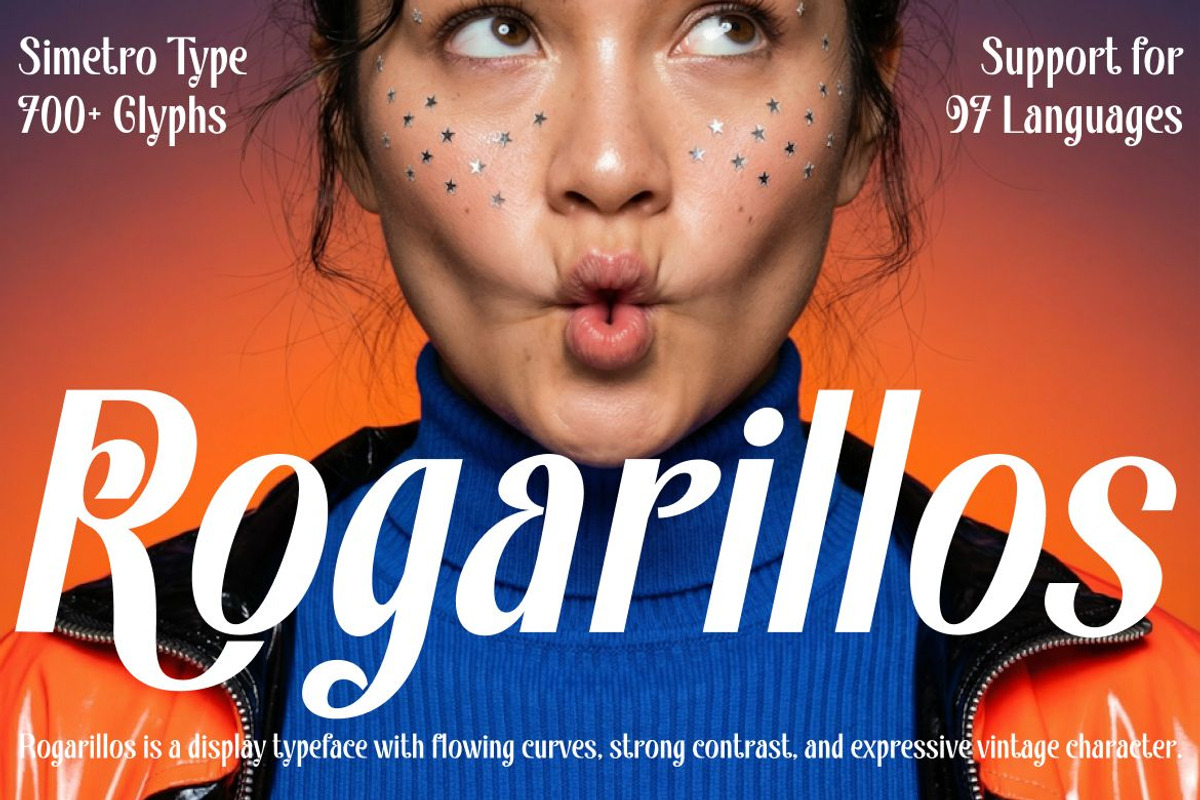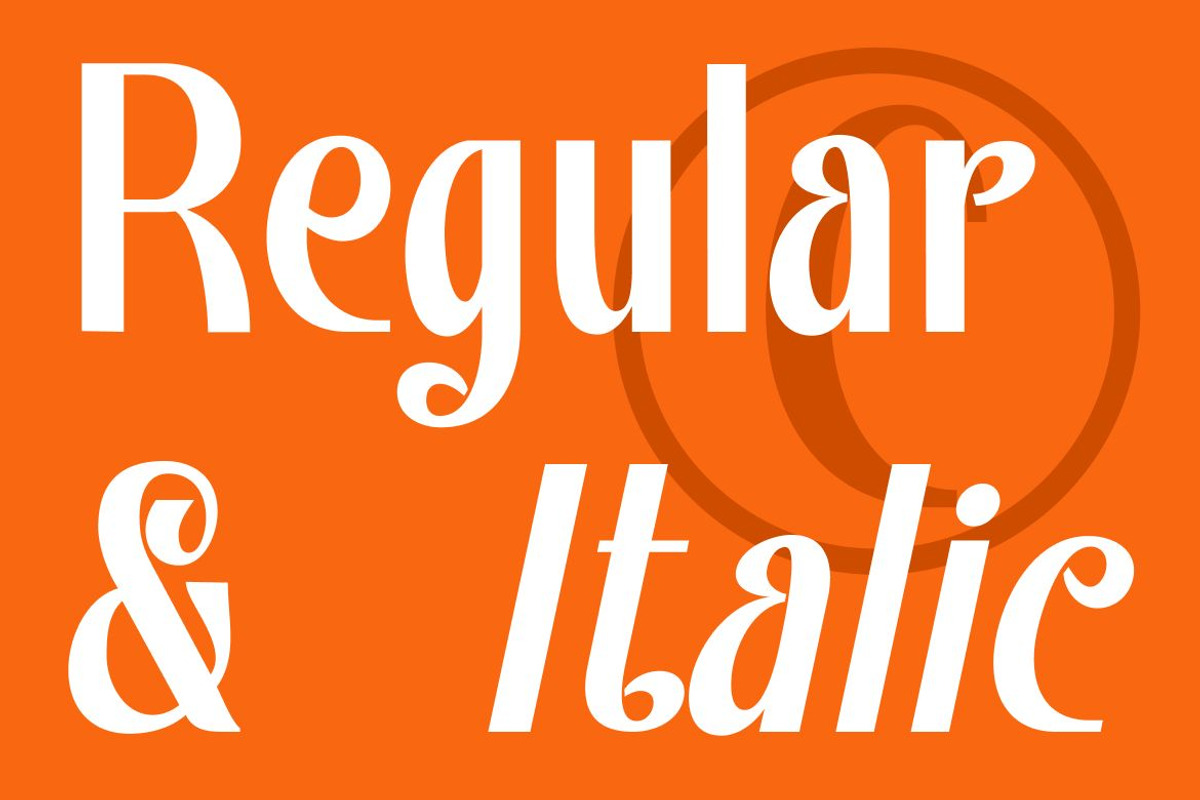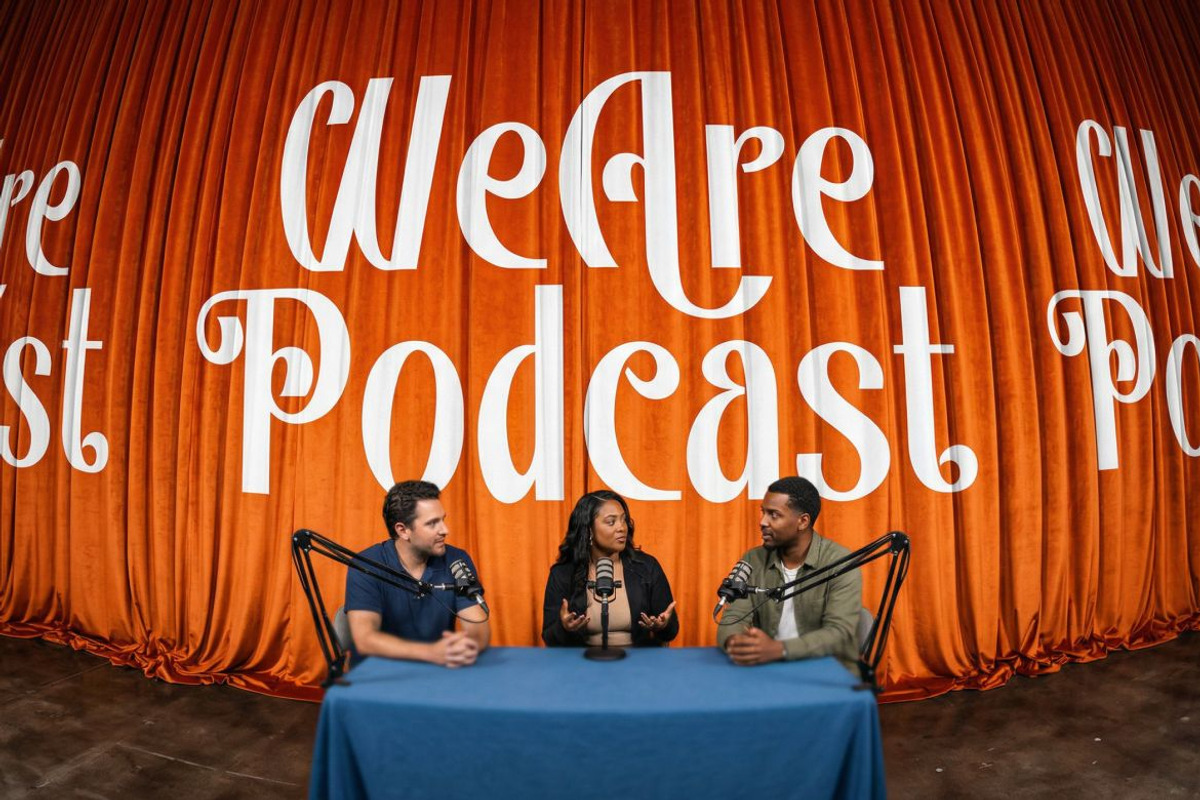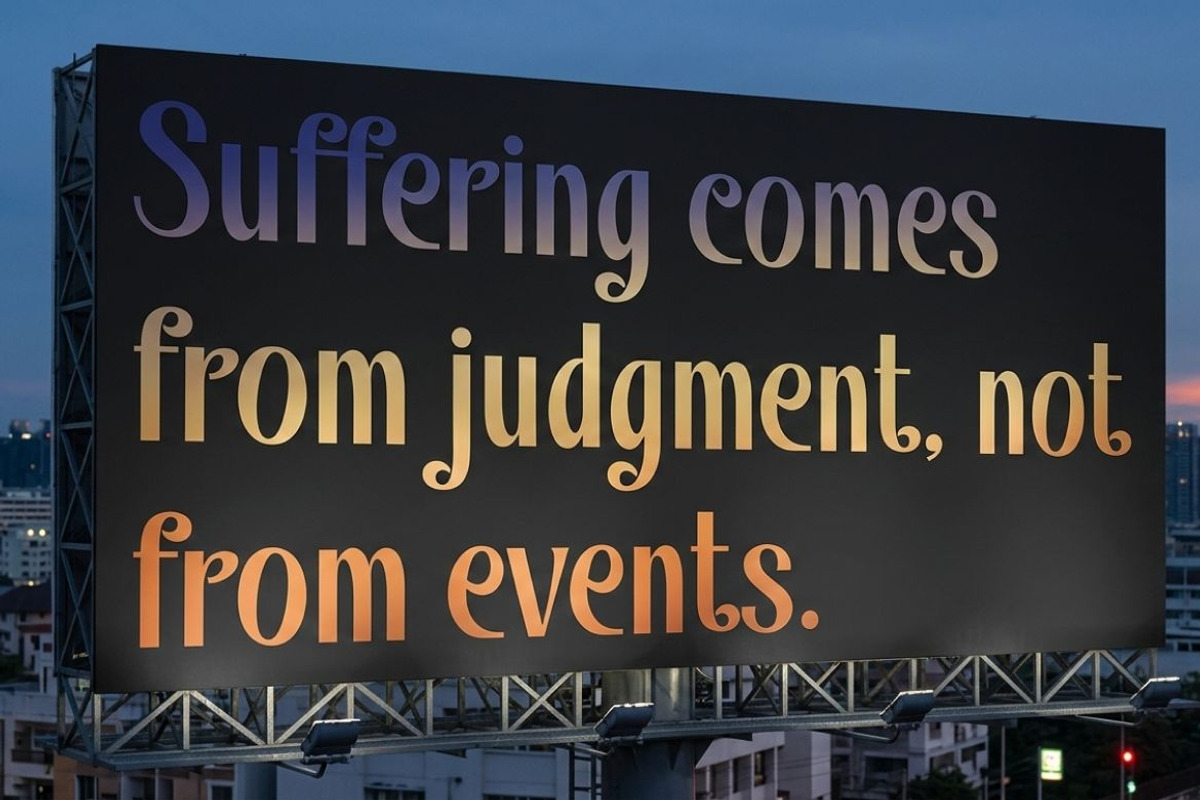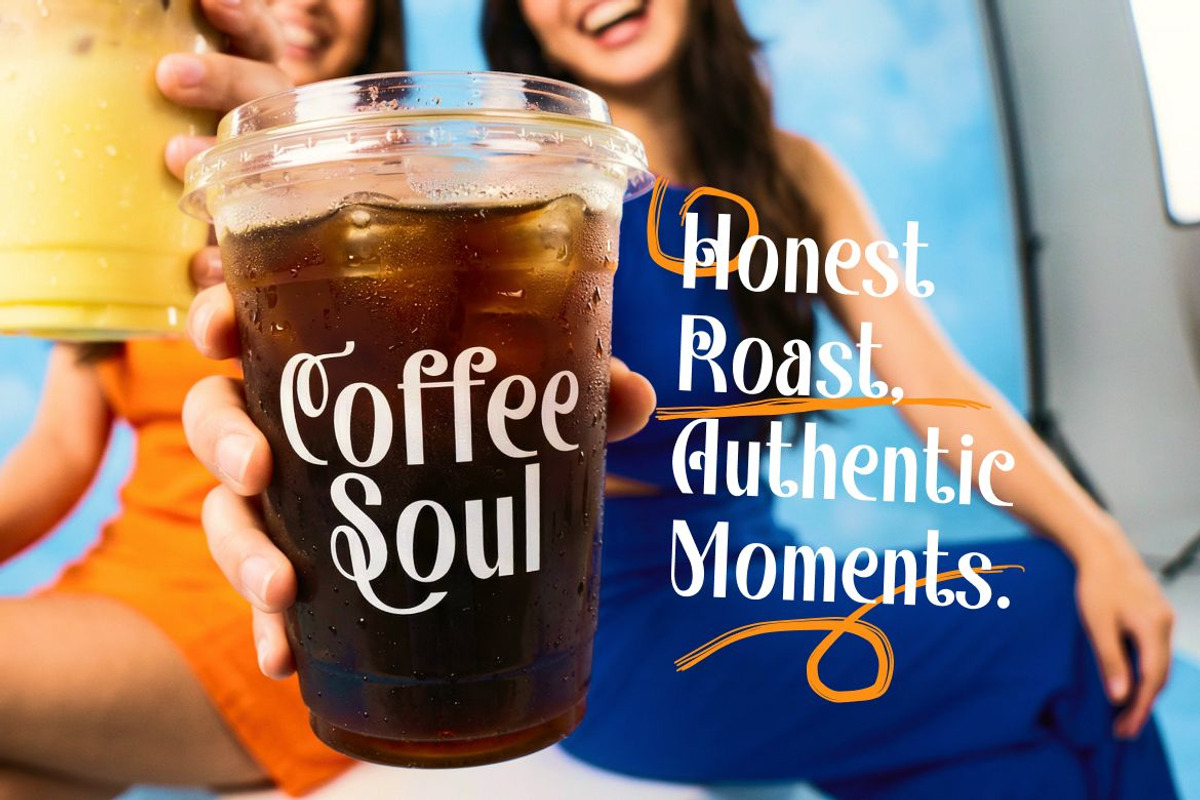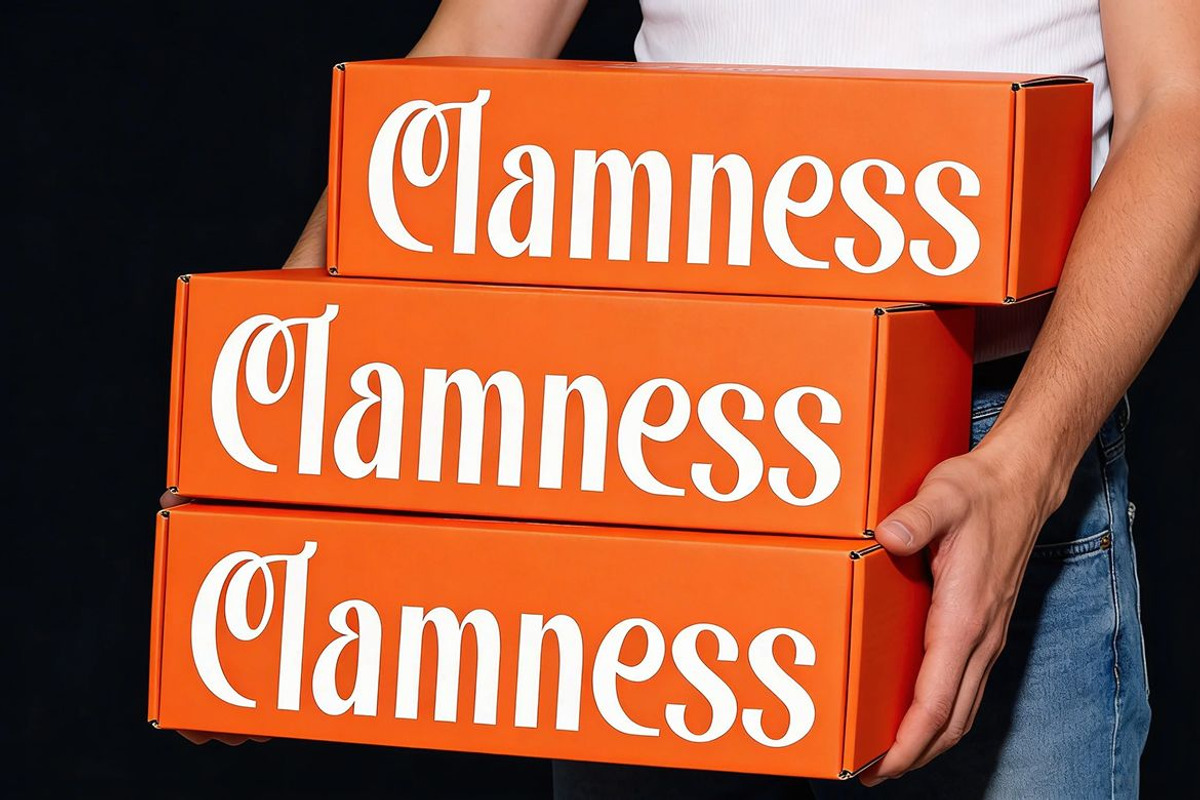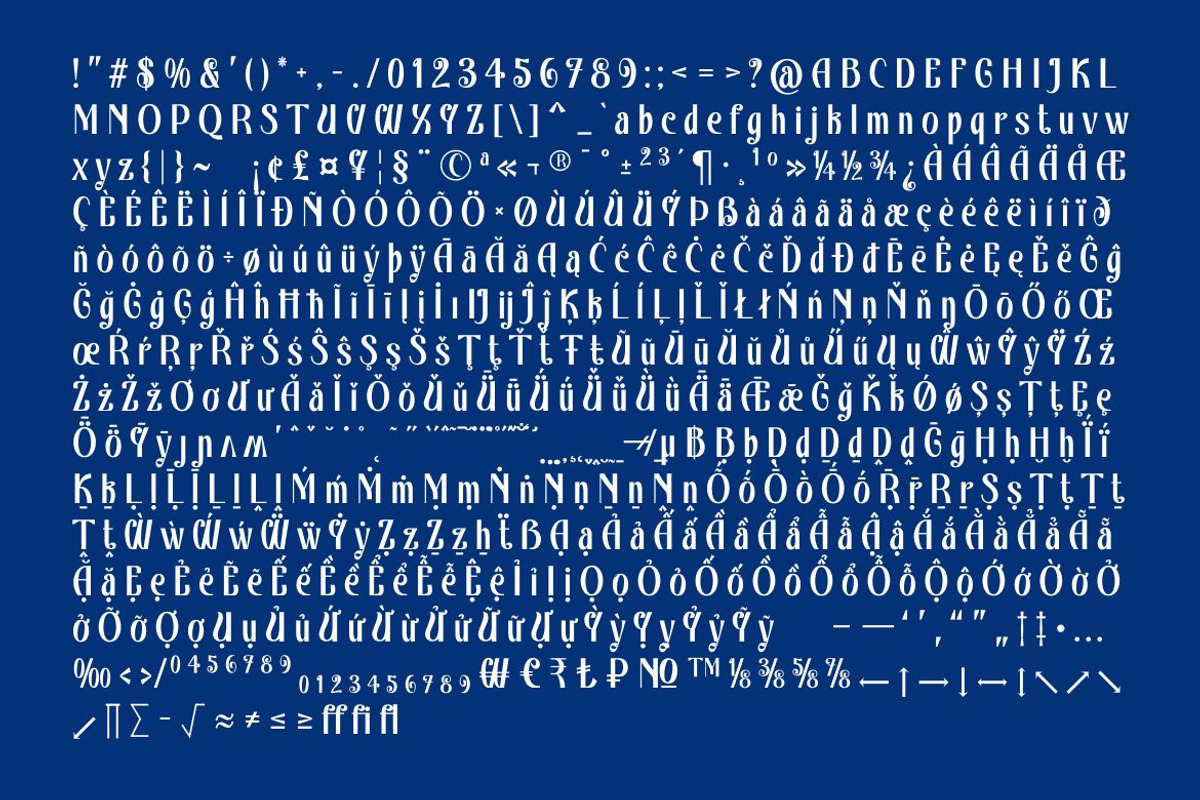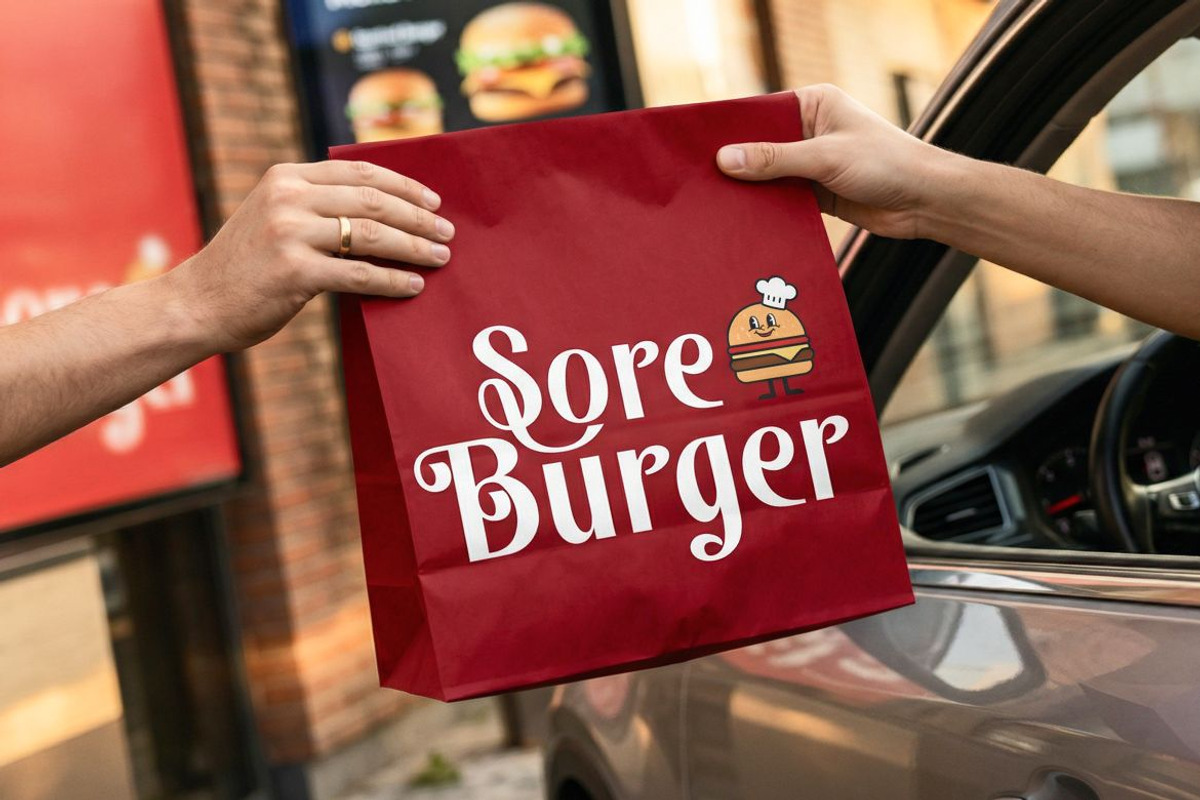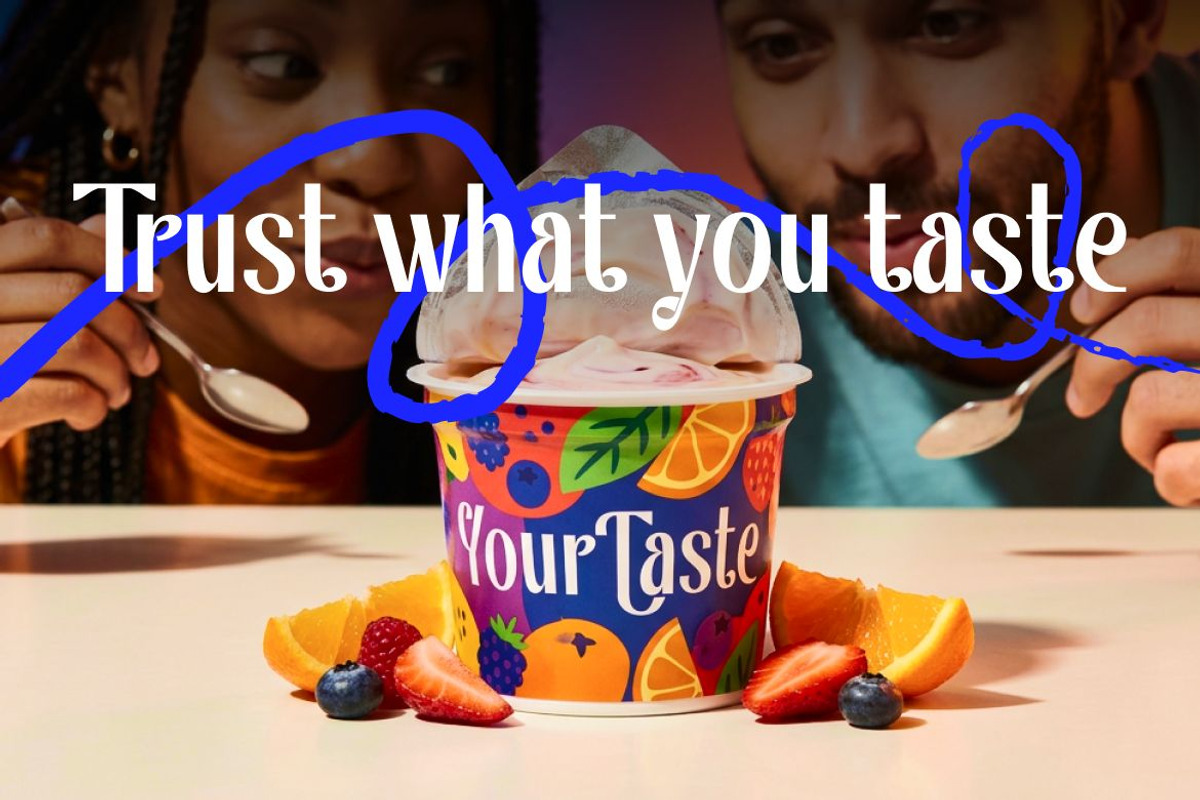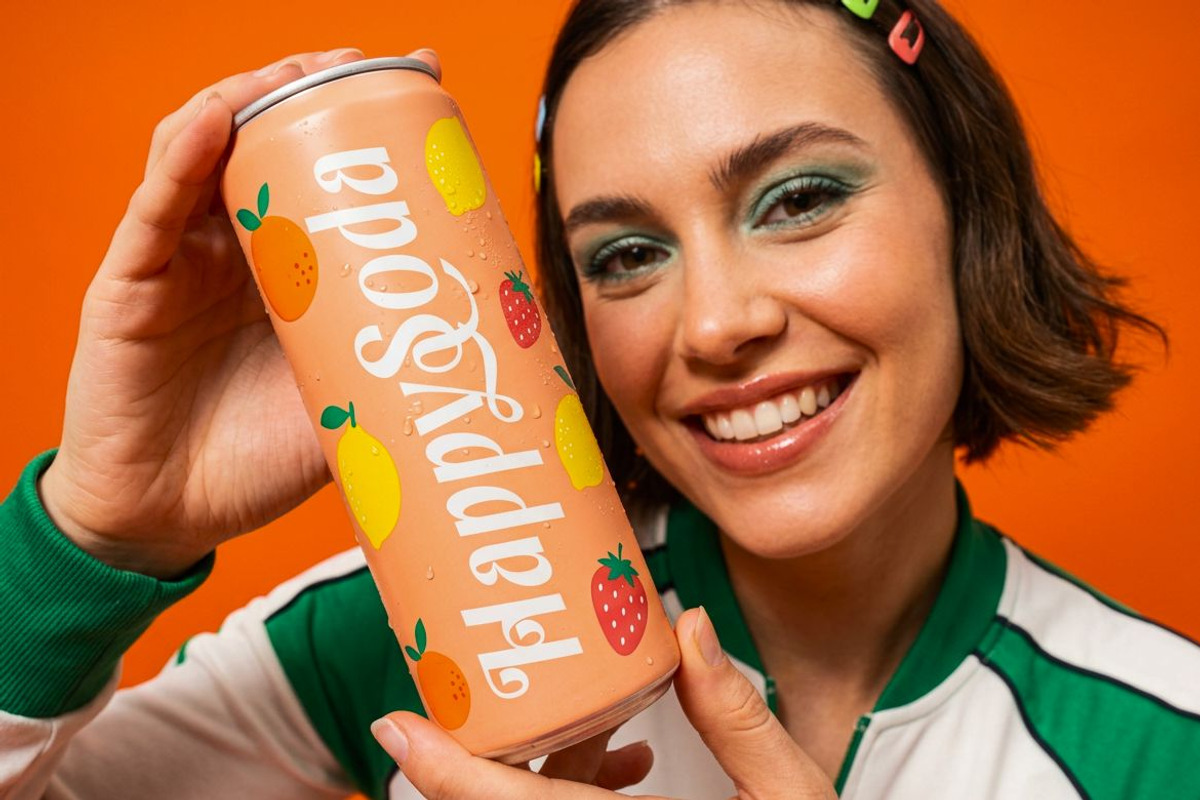
Rogarillos – Vintage Display Font
Rogarillos is a vintage display logotype featuring flowing curves, strong contrast, and expressive swash details. Designed for bold visual impact, this font combines retro character with modern refinement, creating a distinctive and stylish typographic presence.
Built with more than 700 glyphs and support for 97 languages, Rogarillos is suitable for global branding and international design projects. Its clean structure is enhanced by decorative swashes and dynamic letterforms, allowing designers to create elegant, eye-catching compositions.
Rogarillos performs exceptionally well in logos, headlines, posters, packaging, editorial layouts, fashion branding, advertising, and social media graphics. Its high-contrast strokes and expressive rhythm make it ideal for projects that require personality, sophistication, and strong display impact across print and digital platforms.